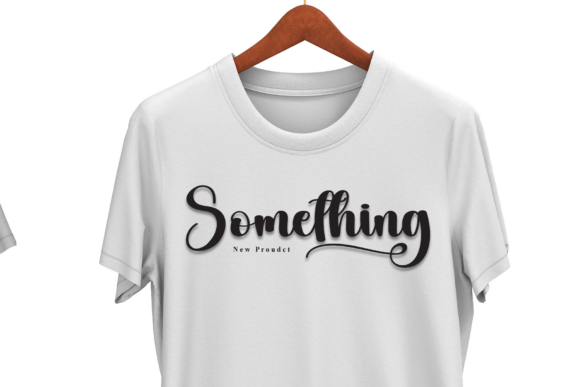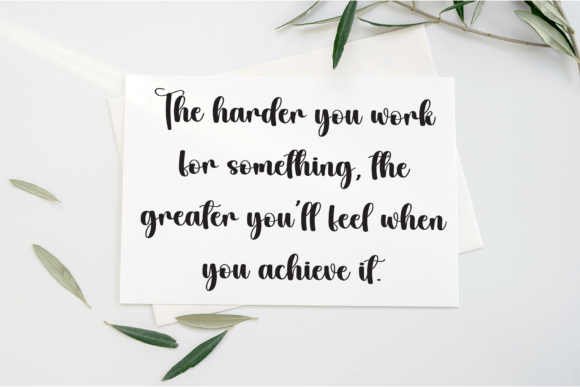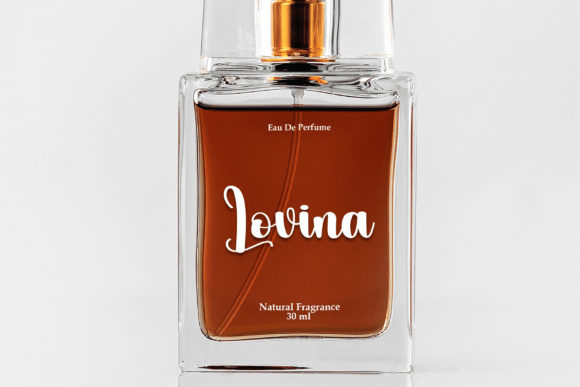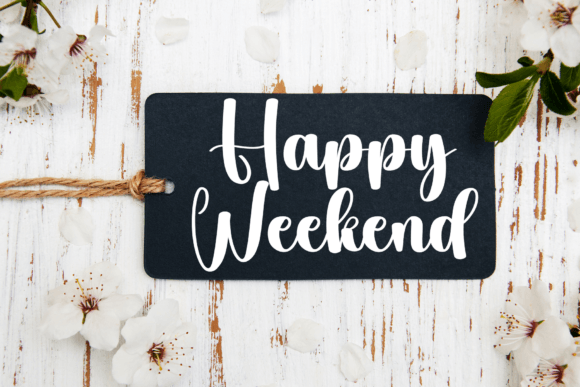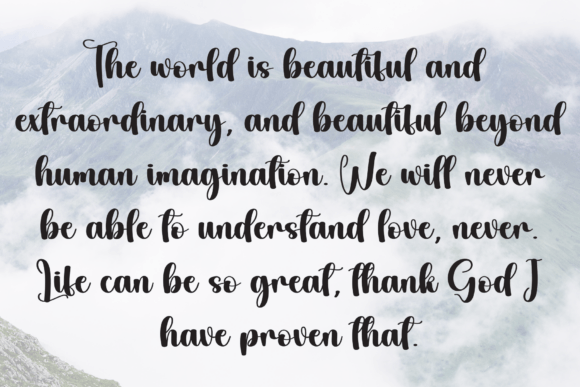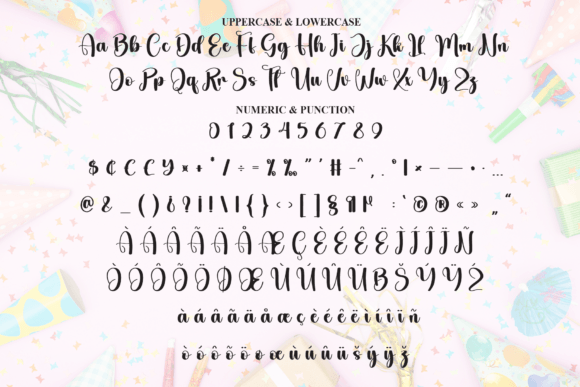
Introducing Birthday Font: The Perfect Choice for Fun and Energetic Designs
Are you looking for a font that can add a touch of excitement and playfulness to your designs? Look no further than Birthday Font! This bold, handwritten font is perfect for creating eye-catching designs that need a fun and energetic vibe. With its thick, expressive strokes, Birthday Font is sure to make your projects stand out from the crowd.
What Makes Birthday Font So Special?
Birthday Font is a unique and stylish font that is perfect for designers and crafters who want to add a personal touch to their work. Its casual and lively style makes it ideal for a wide range of projects, from birthday cards and invitations to posters and social media graphics. The font’s thick, expressive strokes give it a bold and confident look that is sure to grab attention.
• Bold and Expressive Strokes: Birthday Font features thick, expressive strokes that give it a bold and confident look.
• Casual and Lively Style: The font’s casual and lively style makes it perfect for creating fun and energetic designs.
• Handwritten Look: Birthday Font has a handwritten look that adds a personal touch to your designs.
• Easy to Read: Despite its bold style, Birthday Font is easy to read, making it perfect for use in a wide range of projects.
Uses for Birthday Font
Birthday Font is a versatile font that can be used in a wide range of projects, including:
• Birthday Cards and Invitations: The font’s playful and energetic style makes it perfect for birthday cards and invitations.
• Posters and Flyers: Birthday Font is ideal for creating eye-catching posters and flyers that need to grab attention.
• Social Media Graphics: The font’s bold and expressive style makes it perfect for use in social media graphics, such as Facebook posts and Instagram stories.
• Crafting Projects: Birthday Font can be used in a wide range of crafting projects, such as scrapbooking and DIY gifts.
Tips for Using Birthday Font
Here are a few tips for using Birthday Font in your designs:
• Use it as a Headline Font: Birthday Font is perfect for use as a headline font, where its bold and expressive style can really make an impact.
• Pair it with Other Fonts: Birthday Font can be paired with other fonts to create a unique and interesting look.
• Experiment with Colors: The font’s bold style makes it perfect for use with bright and bold colors.
In conclusion, Birthday Font is a unique and stylish font that is perfect for designers and crafters who want to add a touch of fun and energy to their work. Its bold, expressive strokes and casual and lively style make it ideal for a wide range of projects, from birthday cards and invitations to posters and social media graphics. With its ease of use and versatility, Birthday Font is sure to become a favorite in your font collection.